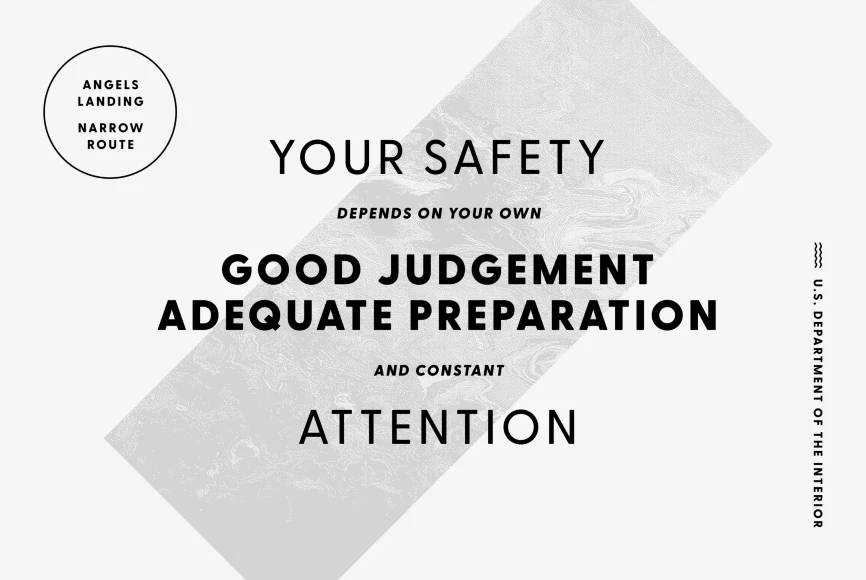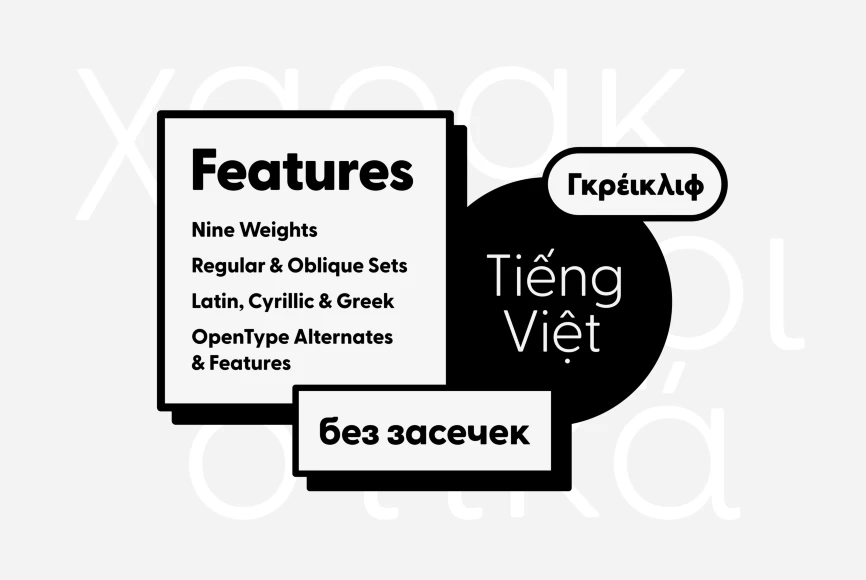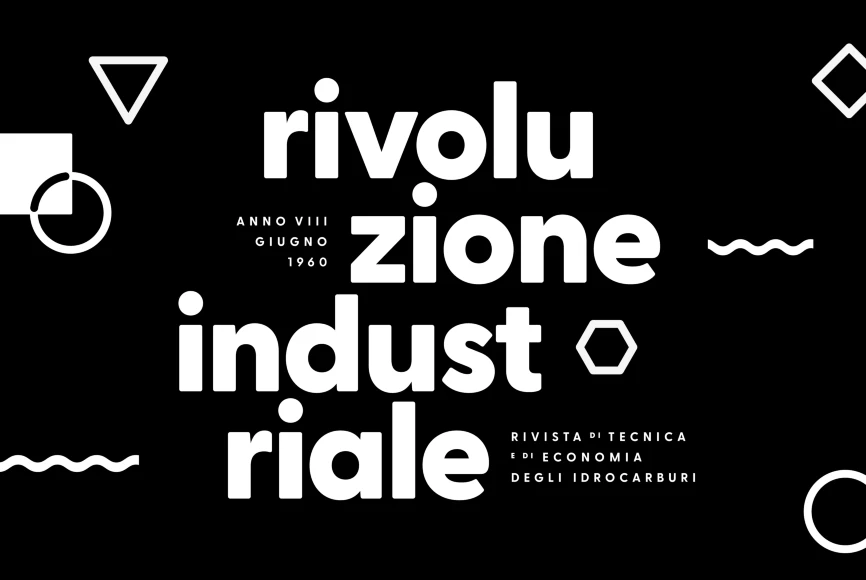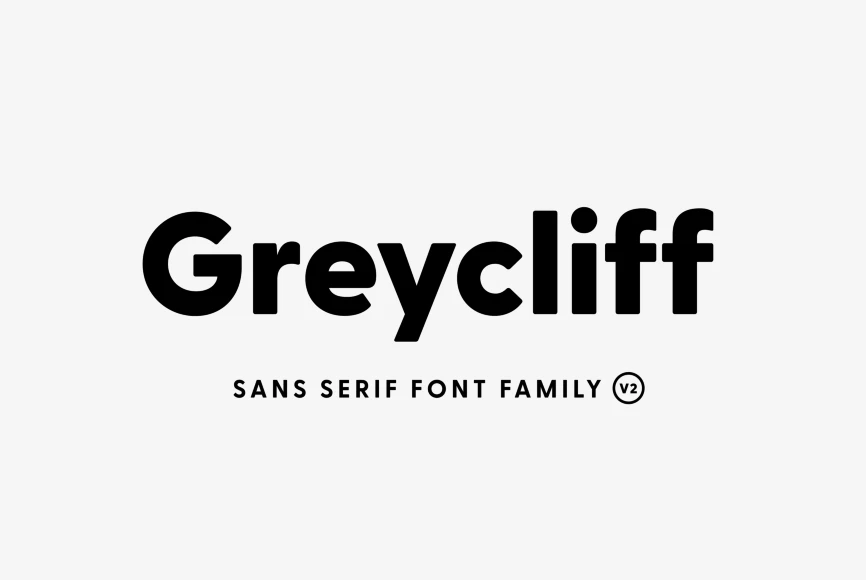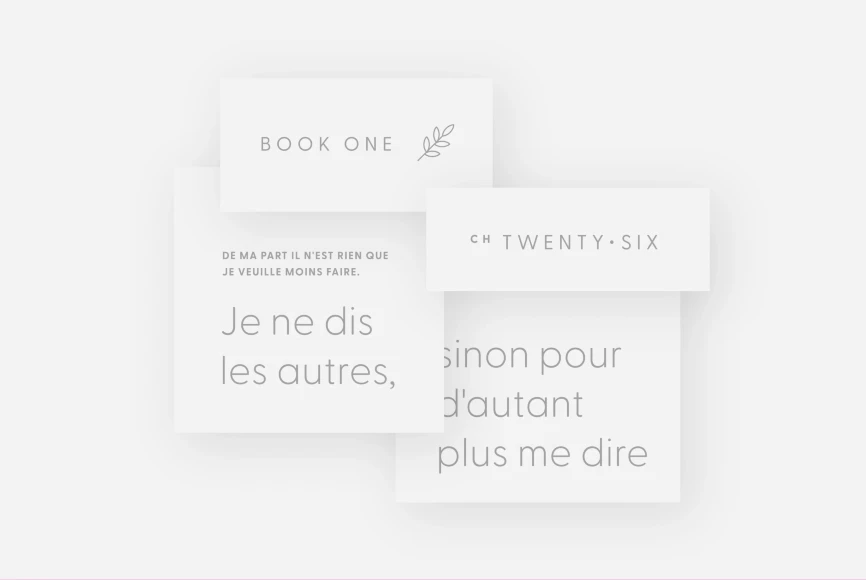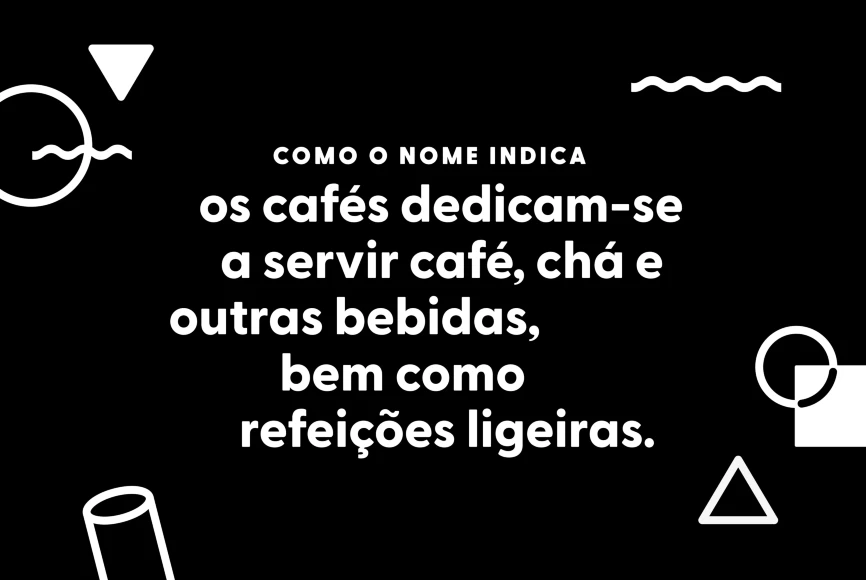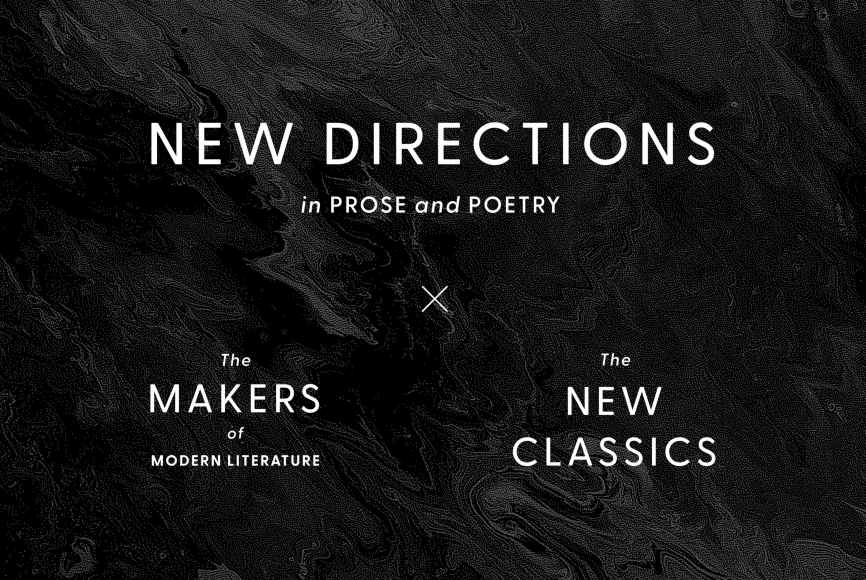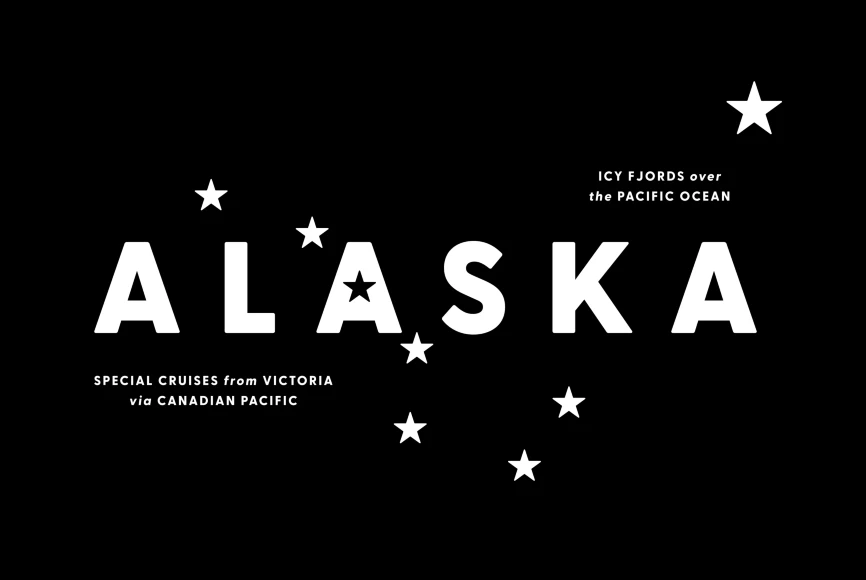
Greycliff
By Connary Fagen
Rugged, hearty, and warm, Greycliff© CF is a versatile font family. Strong capitals and a smooth, open lowercase are effective in a variety of applications. The geometric, near-monoline construction lends Greycliff a classic durability reminiscent of the 1940s, tempered by softened edges and vibrant shapes.